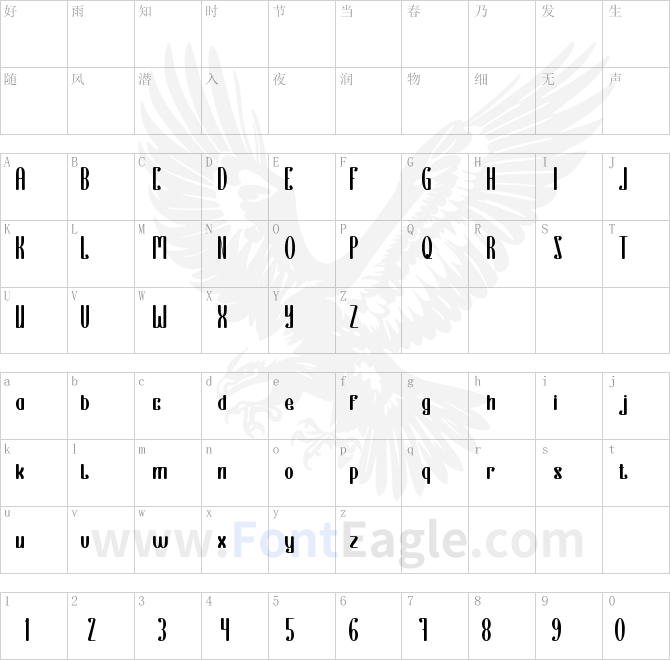
EVERYTHING-IS-A-TEST is a great font, widely used in graphic design, single-page menu design, poster design and other fields, and is deeply loved by designers.EVERYTHING-IS-A-TEST download.